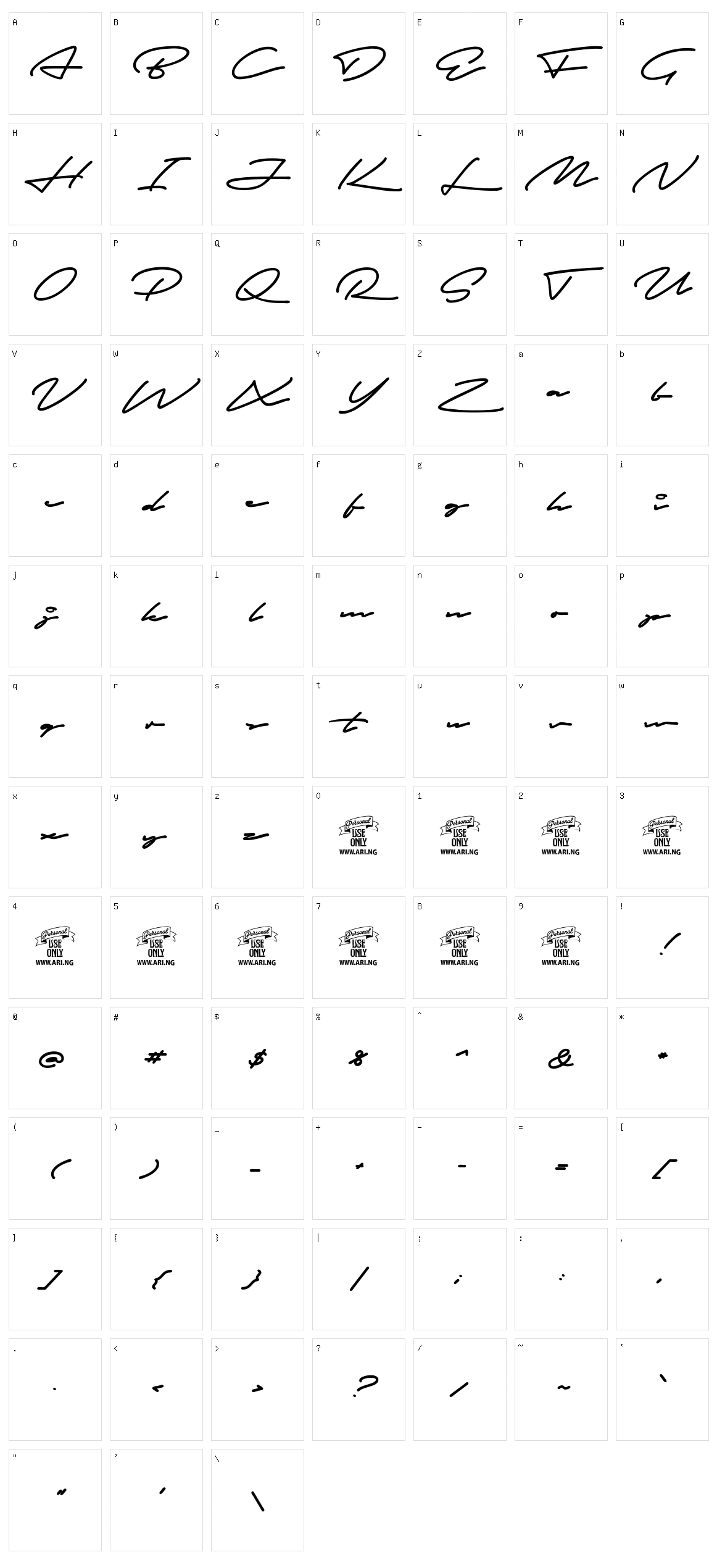
The free font Autograf is carefully designed by Mans Greback, showcasing a thoughtful balance of creativity and usability and falls under the Script font style. When you download the ZIP file, it contains only 119.27 KB of font files, making it lightweight and quick to download. Please review the license details below to understand permitted usage and distribution rights. If license information is not available, we recommend using this font for personal projects only or contacting the author directly for commercial usage permissions.